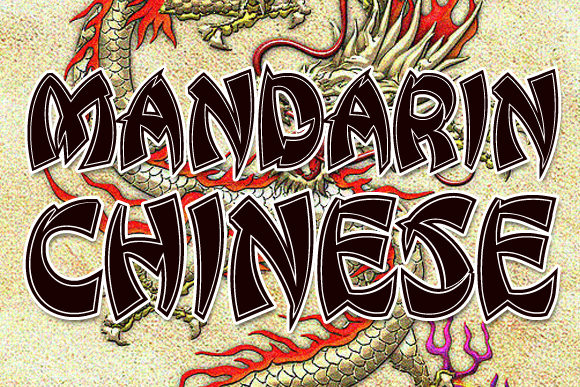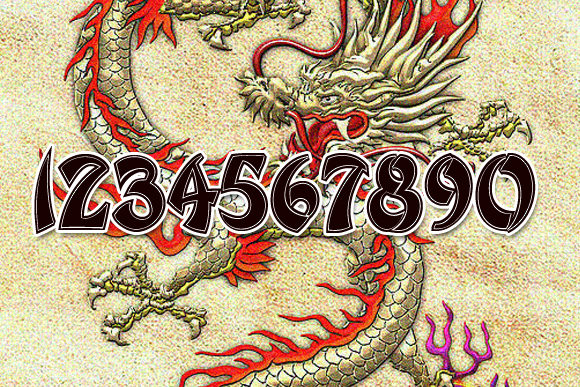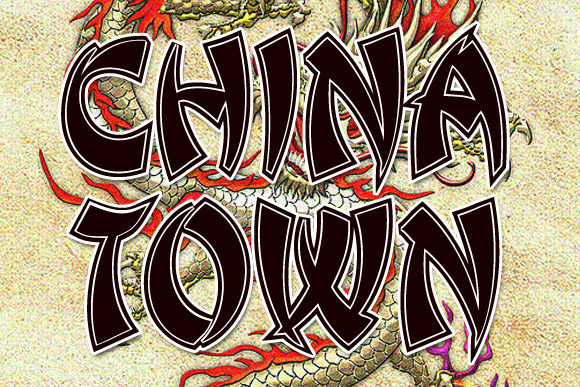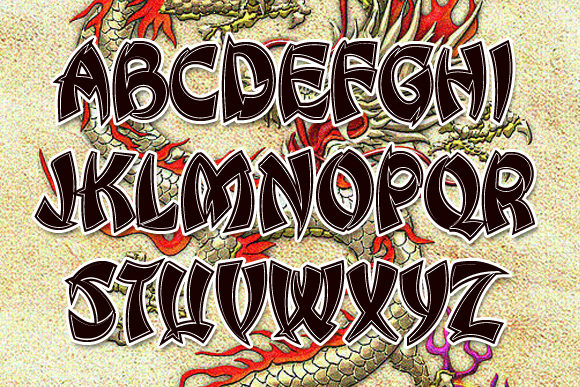
Introduction to Chinese Dragon Font
Inspired by traditional Chinese calligraphy, Chinese Dragon is an extremely beautiful and bold display font.
Key Features of Chinese Dragon Font